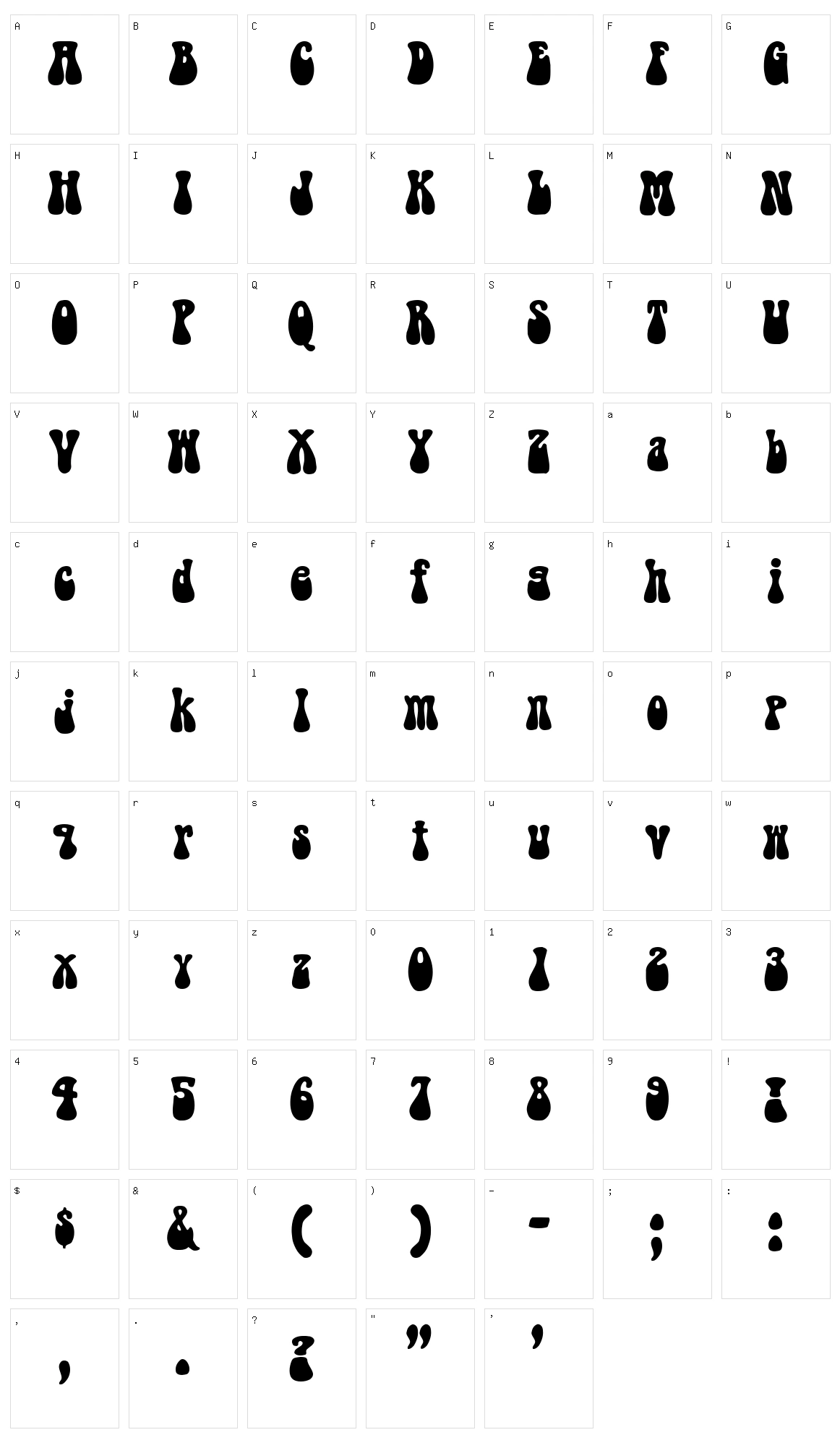
The free font Bell Bottom Laser is carefully designed by Lorvad, showcasing a thoughtful balance of creativity and usability and falls under the Groovy font style. When you download the ZIP file, it contains only 15.35 KB of font files, making it lightweight and quick to download. Please review the license details below to understand permitted usage and distribution rights. If license information is not available, we recommend using this font for personal projects only or contacting the author directly for commercial usage permissions.